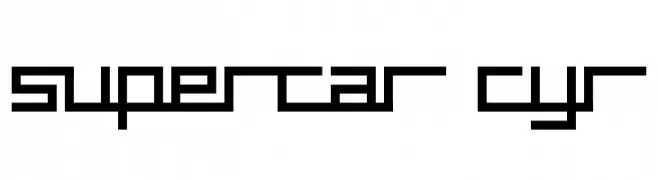
( Font by Sven Stuber - www.superlooper.de )
A modern, dotted font with a digital and geometric style.
( Fonts by Iconian Fonts - Daniel Zadorozny )
A futuristic, geometric outline font with a laser-cut appearance.
( Fonts by http://perso.calixo.net/~uzim/ )
A modern, geometric font with smooth, continuous lines and a minimalist design.
( Fonts by Levi Halmos )
A spooky, flame-like font with jagged edges and a mysterious style.